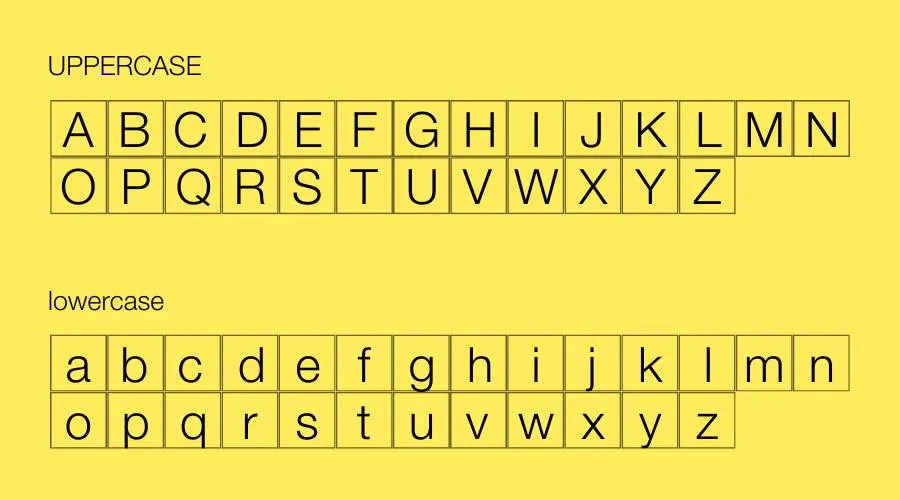
Helvetica Neue Light Font
About Helvetica Neue Light Font
In this article, we will discuss with you a very good-looking and striking sans-serif style identified as the name of Helvetica Neue light font. It looks like a geometric style and was developed by American inventors Hoffmann and Max Miedinger in 1957.
This font has lots of exclusive characters and different weights such as light, normal, medium, and semi-bold (Demi bold). The online generator tool of this typeface will help you to make urgent and stylish characters for all your fun designs and projects.